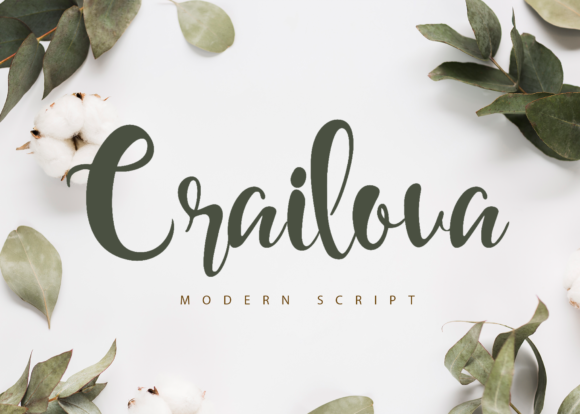
Crailova: The Font That Boosted My Bakery’s Brand
I run a small bakery called Maple & Co. For years, I’ve been using the same font for all my packaging and social media posts. It was safe, but honestly, it felt a little… boring. I wanted to make my brand stand out, especially since I was starting to get more orders from local customers and even some online sales. I needed something fresh, something that would make my designs feel more personal and stylish.
A New Look for a New Era
About a year ago, I decided to refresh my branding entirely. It wasn’t just about colors or logos—it was about making every piece of my business look intentional and cohesive. I knew typography played a huge role in how people perceive a brand. That’s when I came across Crailova.
At first, I wasn’t sure. I’d seen script fonts before, and most of them felt too fancy or hard to read. But Crailova was different. It had this bouncy, fun energy that made me think of handwritten notes and playful creativity. It wasn’t just a font—it was a personality. And that’s exactly what I needed for my brand.
How Crailova Transformed My Packaging
I started by redesigning my product boxes. Before, I used a simple sans serif font that worked well for readability but lacked character. With Crailova, I could add a bit of flair without losing clarity. I used it for the main text on my labels—like “Maple & Co.” and “Handmade with Love”—and paired it with a clean sans serif font for the rest of the details.
The change was subtle, but it made a big difference. Customers began commenting on how much more inviting the packaging looked. Some even asked if I had a custom design team. I didn’t, but I had found a font that helped me create a more polished and memorable brand identity.
Crailova in Action: From Labels to Social Media
Crailova isn’t just for packaging. I started using it for my Instagram templates, thank-you cards, and even my website banners. It works well for headlines and short phrases, which is perfect for social media where attention spans are short.
I also used it for my seasonal tags and limited edition products. For example, during the holiday season, I created a tagline like “Sweet Treats for Every Occasion” in Crailova, and it added a festive touch that matched the vibe of the season. The font’s playful nature made the message feel warm and welcoming.
One thing I learned early on was the importance of readability. While Crailova is beautiful, I had to be careful with how I used it. On small labels or mobile screens, I made sure to keep the text size appropriate and avoid overusing the font. Pairing it with a clean sans serif font helped maintain balance and ensured the message stayed clear.
Font Pairing Tips for Small Businesses
If you’re considering Crailova for your brand, here are a few pairing ideas to help you get started:
- Pair with a clean sans serif for a modern, professional look. Think Helvetica or Montserrat.
- Use an elegant serif for a more classic, refined feel. Times New Roman or Georgia could work well.
- Combine with another script font for a layered, decorative effect. Just make sure they complement each other.
- Try a handwritten font for a more personal, artisanal feel. This can help reinforce your brand’s handmade charm.
Remember, the goal is to create visual consistency across all your materials. Whether it’s a menu, a thank-you card, or a social media graphic, Crailova should feel like part of a larger design story.
Why Crailova Works for Brand Identity
Typography affects more than just how things look—it shapes how people feel about your brand. Crailova helps create a sense of warmth, approachability, and creativity. It’s not just a font; it’s a tool for building trust and connection with your audience.
When customers see Crailova on your packaging or social media, they start to associate it with your brand’s personality. It becomes a recognizable element that makes your business stand out in a crowded market. And that’s exactly what I wanted for Maple & Co.
Getting Started with Crailova
Before using any font for commercial purposes, I always check the licensing and file formats. Crailova comes with a variety of styles, weights, and alternates, so you can customize it to fit your needs. It also supports multiple languages, which is great if you plan to expand your reach.
For small businesses, having access to a premium font like Crailova can make a huge difference. It’s not just about looking good—it’s about feeling professional and consistent. And when your brand feels consistent, your customers remember you.
So if you’re looking for a font that adds personality, readability, and style to your brand, consider Crailova. It might just be the design upgrade your business needs.